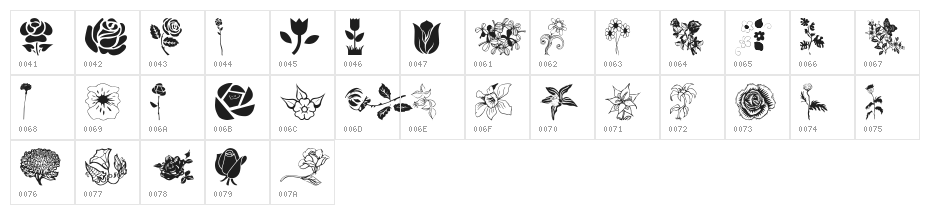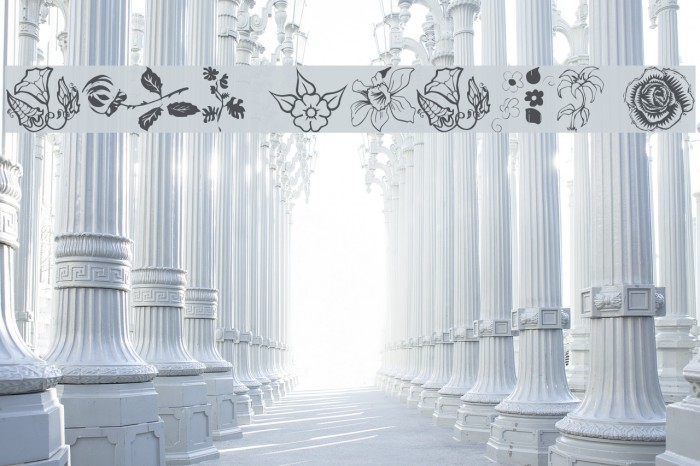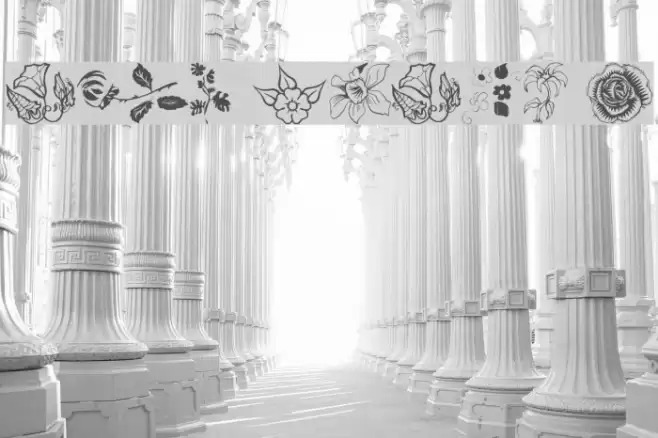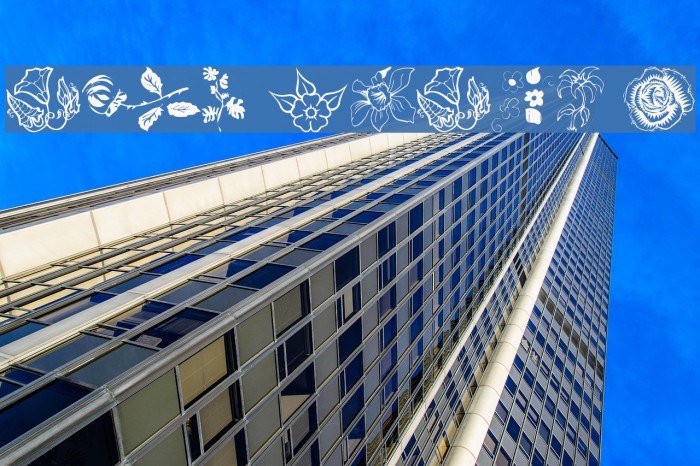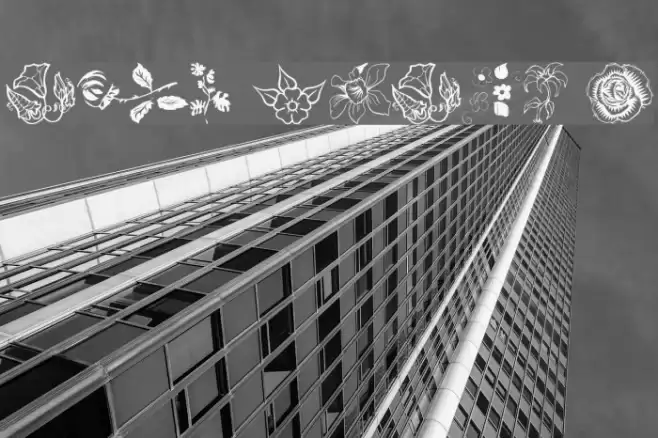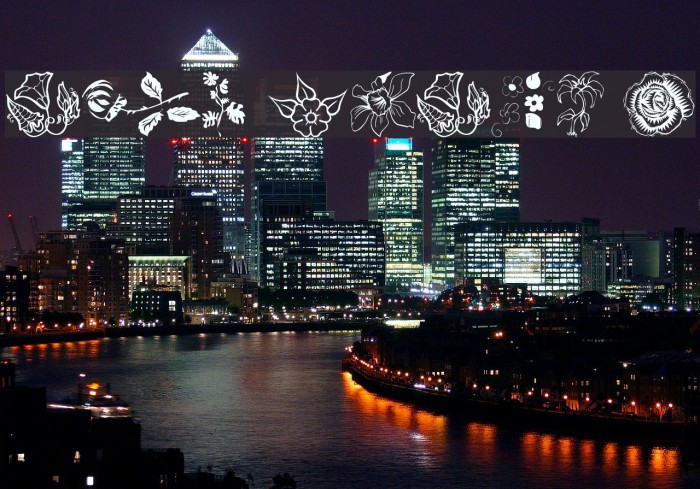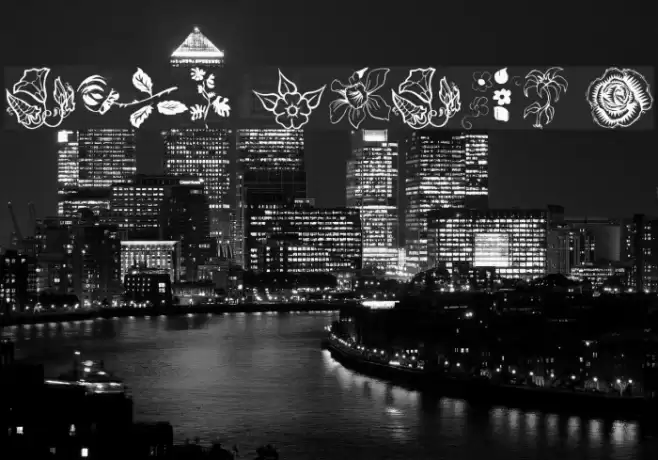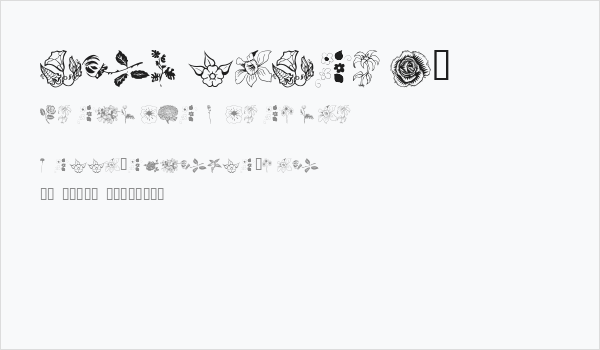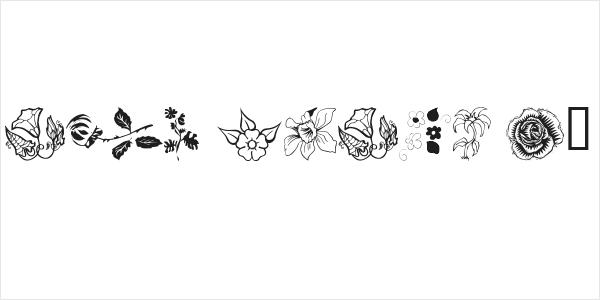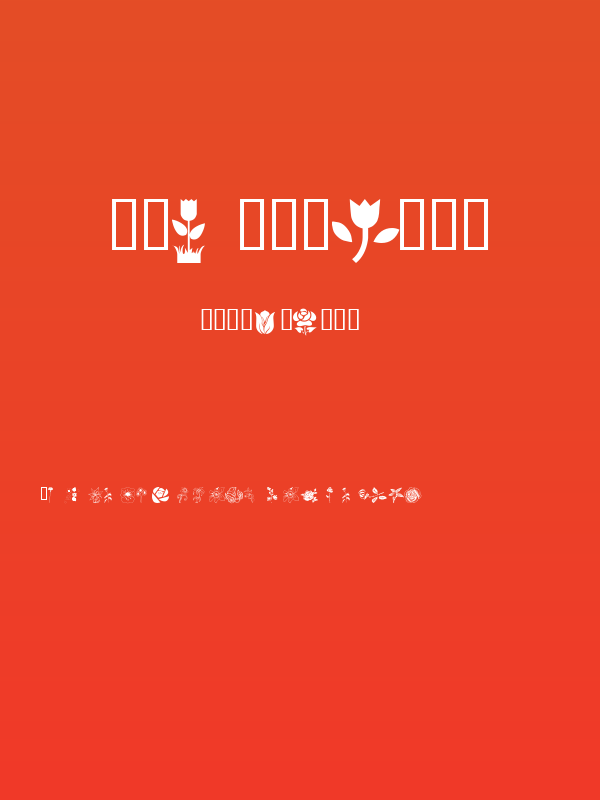
wmflowers1 Font
wmflowers1 Description
A decorative dingbat font featuring a variety of detailed floral and botanical illustrations, including roses, tulips, lilies, and other flowers in both solid and outline styles. Each character is represented by a unique flower or plant drawing, making it suitable for ornamental and artistic purposes.
| Overall Style | Decorative, Artistic, Botanical |
| Use Case | Ornamental elements, embellishments, icons, and decorative accents. |
| Proposed Projects | Greeting cards, wedding invitations, scrapbooking, decorative borders, botanical-themed designs, and craft projects. |